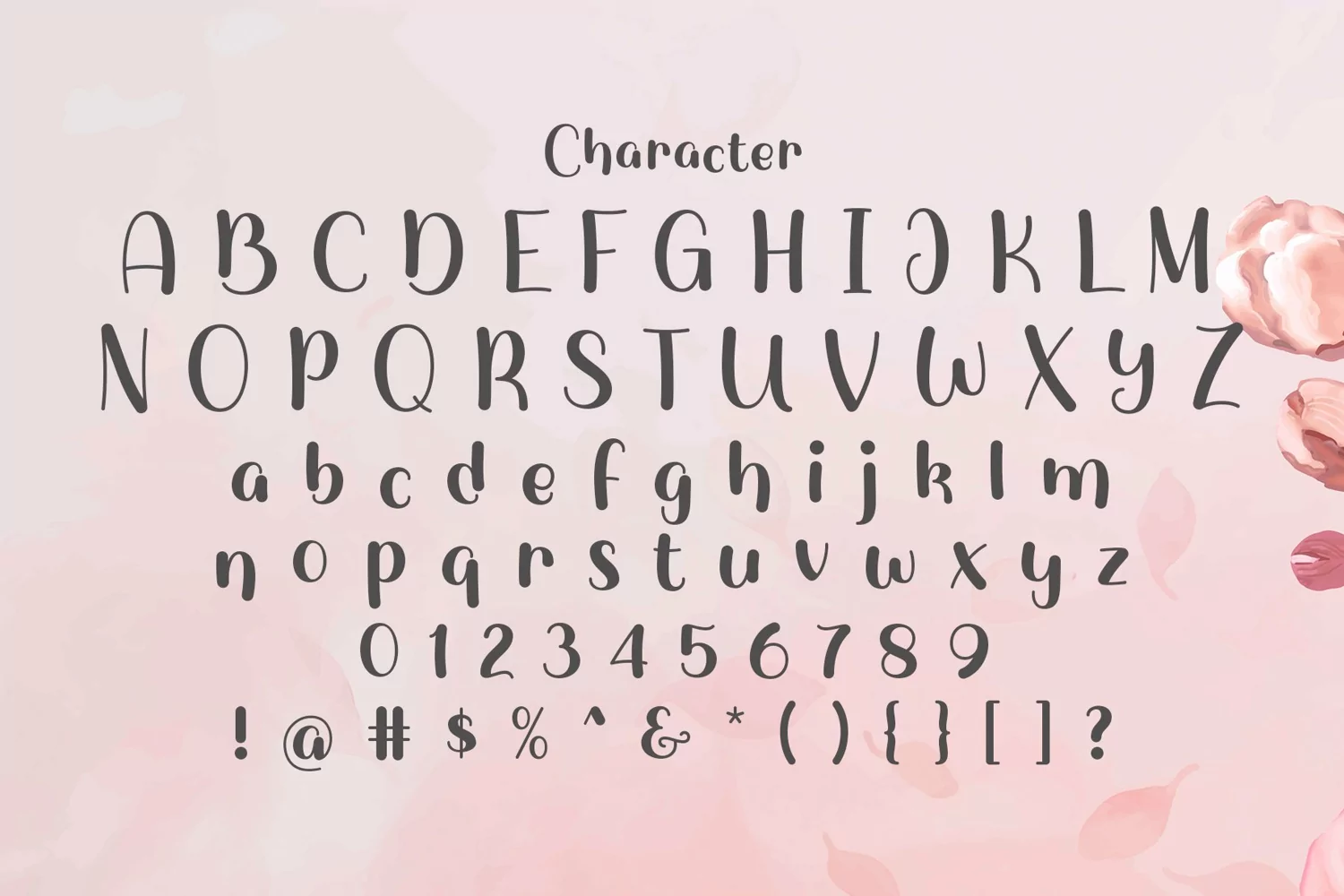
Latina is a handwritten fancy font. Perfect for display, poster, quotes, film, craft needs, book cover, business card, packaging, merchandise, branding, logo, logotype, header, title, and many more.